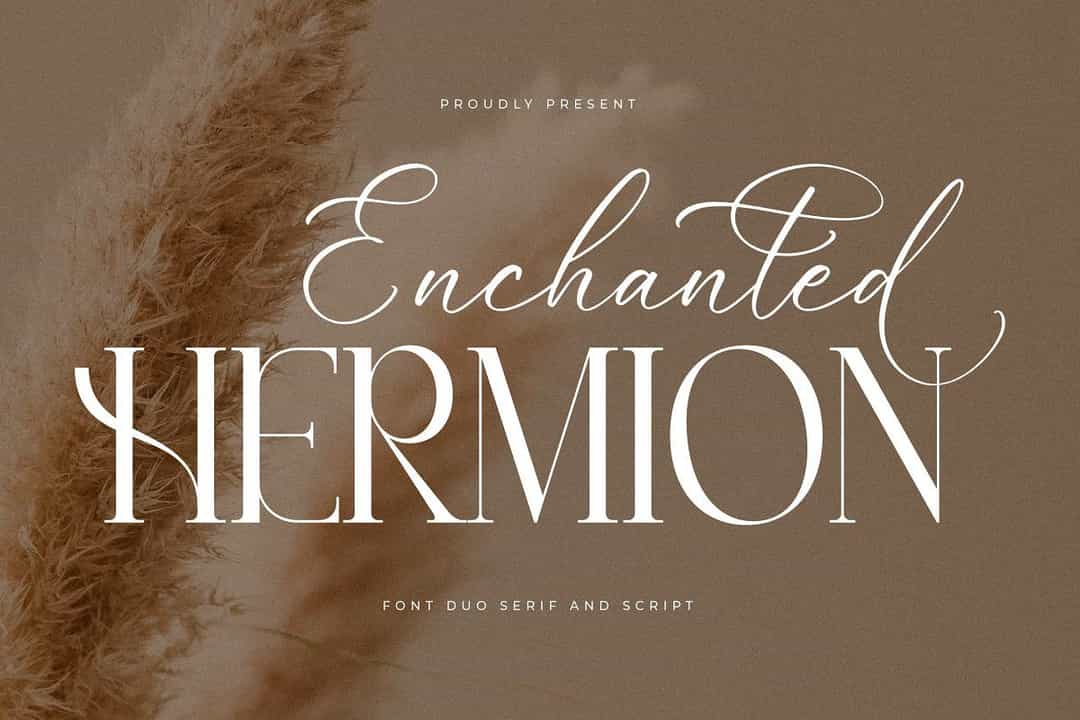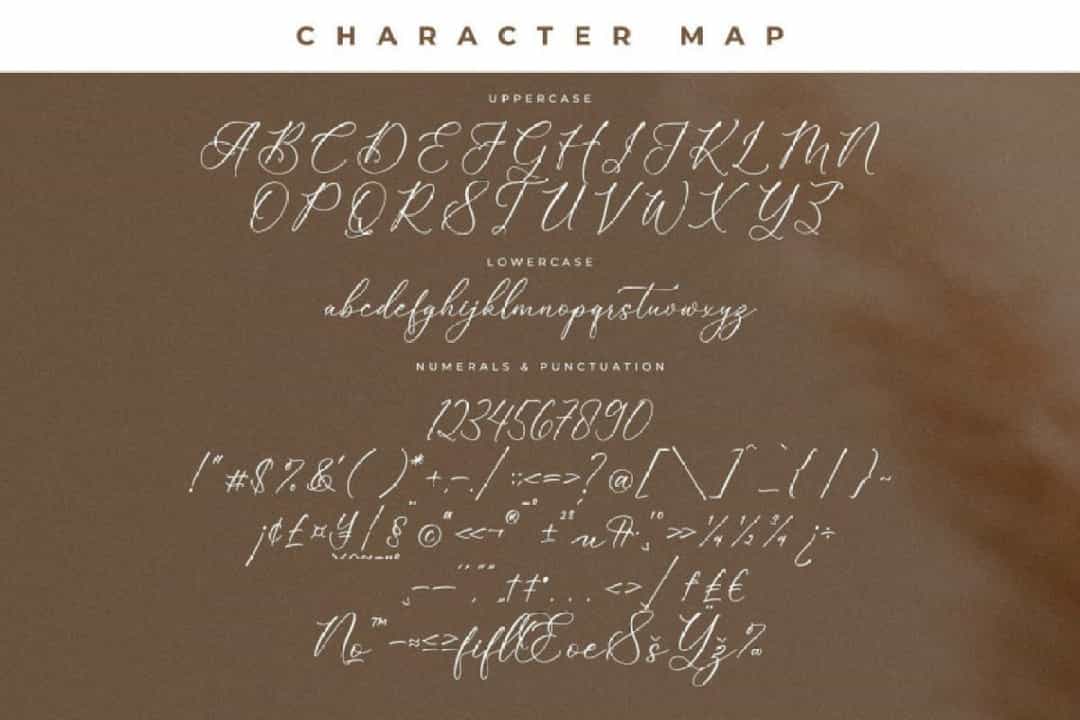
The Enchanted Hermion Font Duo stands as a stunning script and serif font that stands out with its distinct style and modern appearance, ideal for creating classy logos, movie or book title design, fashion magazines, branding clothing items, lettering quotations or many other purposes.